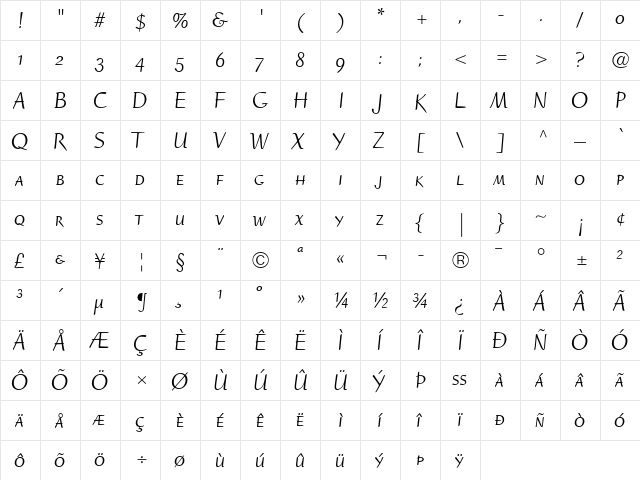
Ruzicka Freehand RomanSC Italic Font Preview
Ruzicka Freehand RomanSC Italic
Design Context for Ruzicka Freehand RomanSC Typeface
Ruzicka Freehand RomanSC brings a calligraphic fluidity to the page — its connecting strokes and expressive curves give it an unmistakably human quality.
Font Pairing: Combine Ruzicka Freehand RomanSC with a simple geometric sans for maximum contrast — the tension between flowing curves and clean structure is a classic typographic pairing.
Pro Tip: Pair Ruzicka Freehand RomanSC with a clean sans-serif for supporting text. The contrast between fluid script and geometric structure creates an elegant typographic hierarchy.